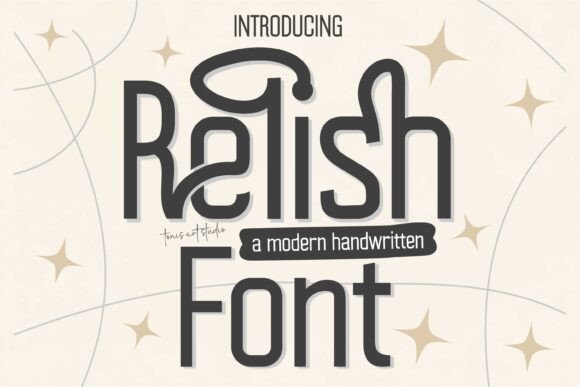
Meet Relish Font: The Contemporary Giant with a Playful Twist
In the vast and ever-evolving world of typography, fonts play a crucial role in shaping the visual identity of brands, products, and artistic expressions. Among the numerous fonts that have made a mark in recent years, Relish Font stands out as a contemporary giant with a unique hand-drawn sans serif facade. Adorned with amusing curves and swash substitutes, Relish Font has become an ideal choice for a wide range of applications, from artsy quotes and homemade crafts to high-impact brand identity, chic t-shirts, and delightful coffee mugs.
What Makes Relish Font Special?
- Hand-drawn sans serif facade: Relish Font boasts a distinctive hand-drawn sans serif facade that sets it apart from more traditional fonts. This unique feature gives it a personal touch, making it perfect for creative projects that require a human feel.
- Amusing curves and swash substitutes: The font’s amusing curves and swash substitutes add a playful twist to its design. These elements can be used to add a touch of whimsy to any project, making it ideal for brands and artists who want to convey a sense of fun and approachability.
- Versatility: Relish Font is an incredibly versatile font that can be used for a wide range of applications. Whether you’re designing a logo, creating a social media post, or producing a marketing campaign, this font can adapt to any style or tone.
Use Cases for Relish Font
Relish Font’s unique features make it an excellent choice for various projects and applications. Here are some of the most popular use cases:
- Artsy quotes and social media posts: Relish Font’s playful and creative vibe makes it perfect for artsy quotes and social media posts. Its hand-drawn sans serif facade and amusing curves add a personal touch that can help your content stand out in a crowded feed.
- Homemade crafts and DIY projects: If you’re creating homemade crafts or DIY projects, Relish Font can add a touch of personality to your designs. From handmade cards to customized mugs, this font can help you create unique and eye-catching products.
- High-impact brand identity: Relish Font’s versatility and creative flair make it an excellent choice for high-impact brand identity projects. Whether you’re designing a logo, creating a brand manifesto, or producing marketing materials, this font can help you establish a strong and memorable visual identity.
- Chic t-shirts and apparel: Relish Font’s playful and modern design makes it perfect for chic t-shirts and apparel. Its amusing curves and swash substitutes can add a fun and youthful touch to your designs, making them perfect for fashion brands and artists.
- Delightful coffee mugs and ceramics: Finally, Relish Font’s creative vibe makes it an excellent choice for delightful coffee mugs and ceramics. Whether you’re designing a custom mug or creating a set of ceramic plates, this font can add a touch of personality and whimsy to your products.
Typography Tips for Using Relish Font
To get the most out of Relish Font, here are some typography tips to keep in mind:
- Experiment with font sizes: Relish Font’s hand-drawn sans serif facade and amusing curves look great in a variety of font sizes. Experiment with different sizes to find the perfect balance for your project.
- Play with swashes and curves: Relish Font’s swashes and curves are a key part of its design. Don’t be afraid to experiment with different swash styles and curve combinations to add visual interest to your text.
- Mix and match with other fonts: Relish Font pairs well with a variety of other fonts. Try mixing and matching it with serif fonts, script fonts, or other sans serif fonts to create a unique visual identity.
- Use it sparingly: While Relish Font is a beautiful font, it can be overwhelming if used excessively. Use it sparingly to add a touch of personality to your designs, rather than relying on it for entire blocks of text.
Relish Font is a contemporary giant with a playful twist. Its hand-drawn sans serif facade, amusing curves, and swash substitutes make it an ideal choice for a wide range of applications, from artsy quotes and homemade crafts to high-impact brand identity, chic t-shirts, and delightful coffee mugs. By following the typography tips outlined above, you can get the most out of Relish Font and create stunning designs that showcase your creativity and personality.